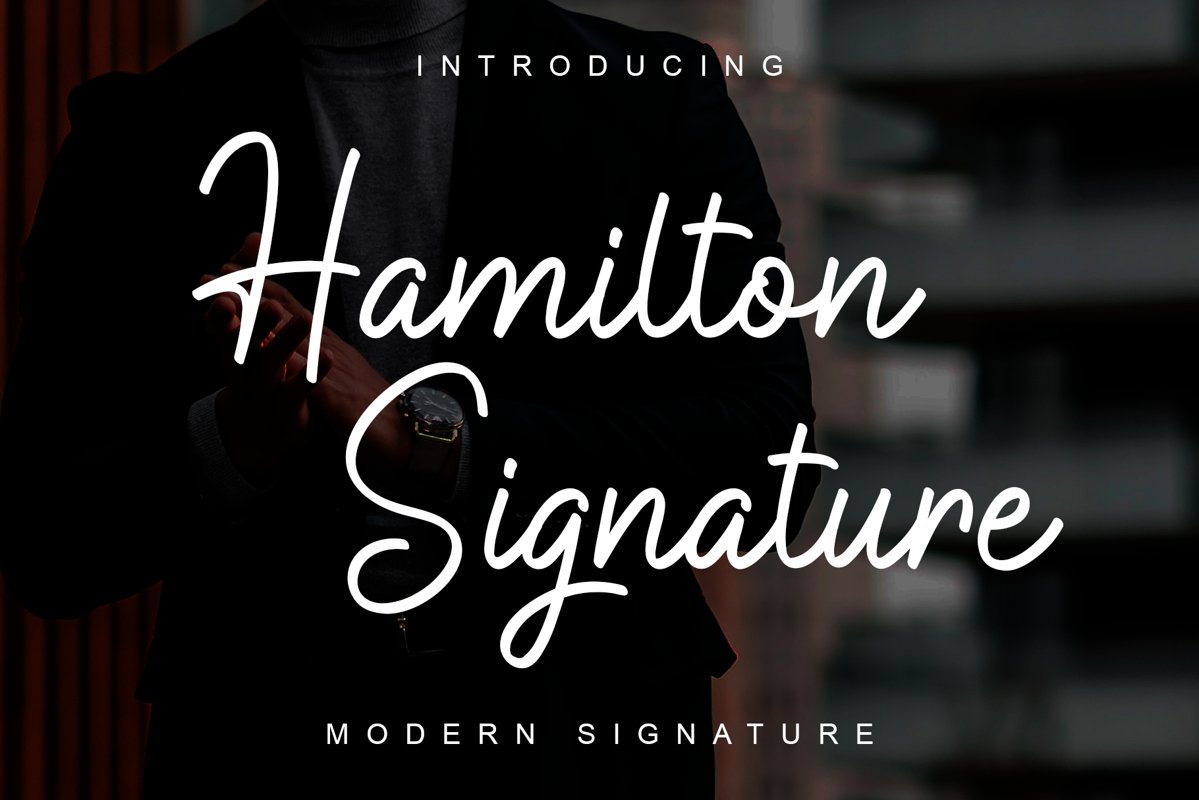
Hamilton Signature Font
Hamilton Signature
Introducing 'Hamilton Signature', this font is perfect for fashion designs, signatures, logotypes,
branding, watermarks, photography, business cards and branding.